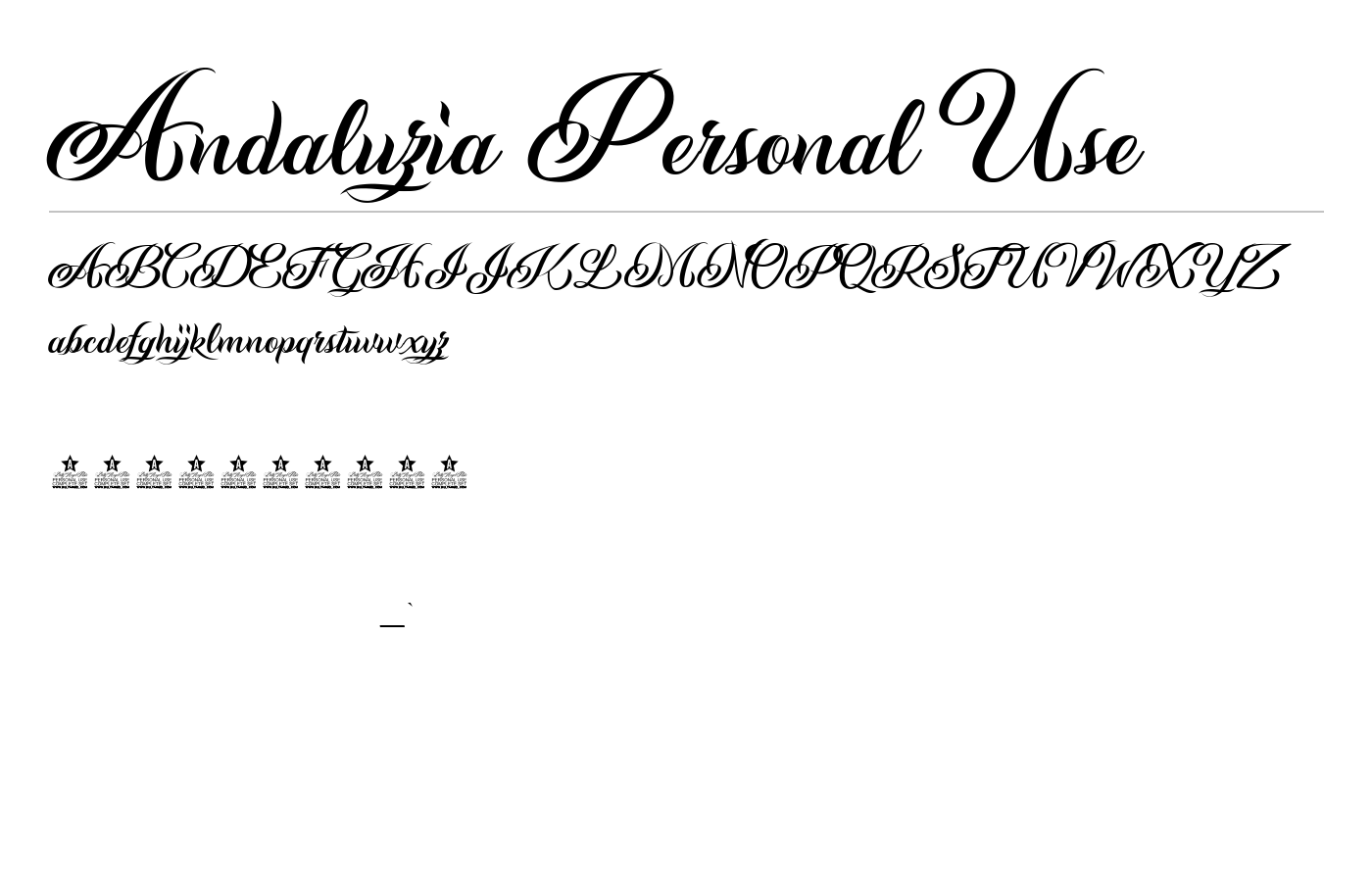
Andaluzia Personal Use is an elegant, highly stylized script font that features flowing, calligraphic letterforms with ornate swashes and flourishes, giving it a luxurious and classic appearance. Its high contrast strokes and graceful curves make it ideal for sophisticated branding, wedding invitations, and decorative headlines where a touch of refinement and artistry is desired. This font shines in contexts that require a personal, graceful touch rather than body text due to its elaborate style and delicate details.
Andaluzia Personal Use Font
About Andaluzia Personal Use Font
| Font family | Andaluzia Personal Use Font |